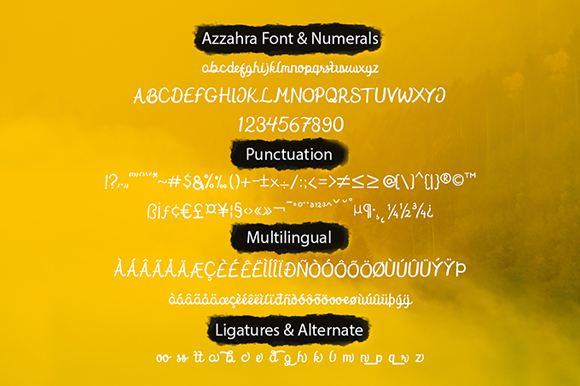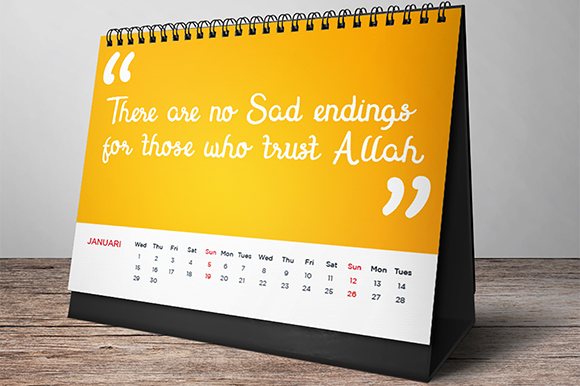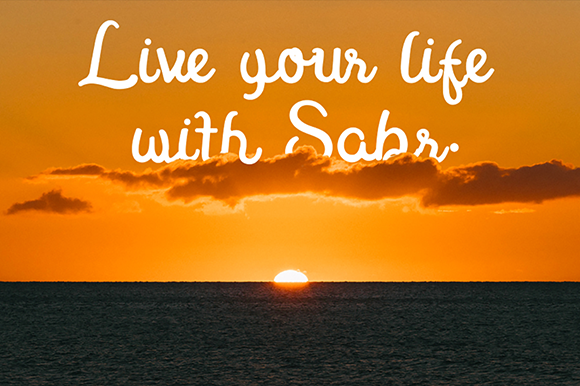
Azzahra Font: Elevate Your Designs with Elegance and Sophistication
In the world of typography, a well-crafted font can make all the difference in transforming a design from ordinary to extraordinary. Introducing Azzahra Font, a stunning handwritten typeface that is sure to capture your heart. With its perfect blend of classic calligraphic influences and modern flair, Azzahra is the ultimate choice for designers and crafters seeking to elevate their projects to new heights.
The Story Behind Azzahra Font
Azzahra Font is the brainchild of talented designers who poured their hearts and souls into creating a truly exceptional typeface. The result is a font that exudes elegance, sophistication, and a touch of whimsy. Azzahra’s unique charm lies in its ability to balance traditional calligraphic elements with a contemporary twist, making it an instant favorite among designers and crafters.
What Makes Azzahra Font So Special?
So, what sets Azzahra Font apart from other typefaces? Here are just a few reasons why Azzahra is a cut above the rest:
- Exquisite Handwritten Style: Azzahra boasts a beautiful, handwritten aesthetic that adds a personal touch to any design.
- Classy Calligraphic Influences: The font’s calligraphic roots give it a sophisticated, high-end feel that’s perfect for luxury brands and high-end designs.
- Contemporary and Fresh: Azzahra’s modern twist ensures it feels fresh and current, making it ideal for designs that require a youthful, vibrant vibe.
- Versatility: Whether you’re working on a logo, branding project, or social media graphics, Azzahra Font adapts seamlessly to any design style.
Azzahra Font is a dream come true for designers and crafters seeking to add a touch of elegance and sophistication to their work. Here are just a few ways you can use Azzahra to elevate your designs:
- Logos and Branding: Create stunning logos, business cards, and branding materials that exude luxury and refinement.
- Social Media Graphics: Add a touch of class to your social media graphics, including Instagram posts, Facebook covers, and Twitter headers.
- Wedding and Event Stationery: Use Azzahra to create beautiful wedding invitations, save-the-date cards, and event stationery that wows.
- Packaging and Product Design: Elevate your packaging and product designs with Azzahra’s sophisticated, high-end aesthetic.
Tips for Getting the Most Out of Azzahra Font
To truly make Azzahra Font shine, here are a few expert tips to keep in mind:
- Experiment with Font Sizes: Azzahra looks stunning in a variety of font sizes, so don’t be afraid to experiment to find the perfect fit for your design.
- Play with Color: Azzahra’s elegant lines and curves look beautiful in a range of colors, from classic black and white to bold, bright hues.
- Mix and Match with Other Fonts: Combine Azzahra with other fonts to create a unique, visually appealing typography style.
In conclusion, Azzahra Font is a true gem in the world of typography. With its exquisite handwritten style, classy calligraphic influences, and contemporary flair, Azzahra is the perfect choice for designers and crafters seeking to elevate their designs to new heights. Whether you’re working on a luxury brand, social media graphics, or wedding stationery, Azzahra Font is sure to become your new favorite. So why wait? Fall in love with Azzahra and bring your projects to life with elegance, sophistication, and style!